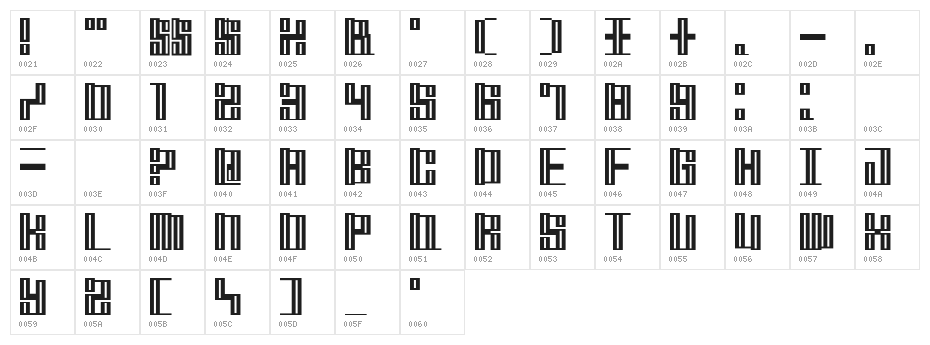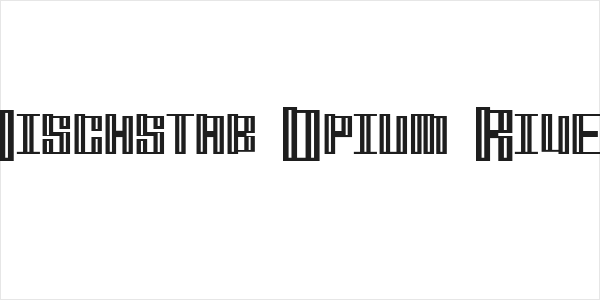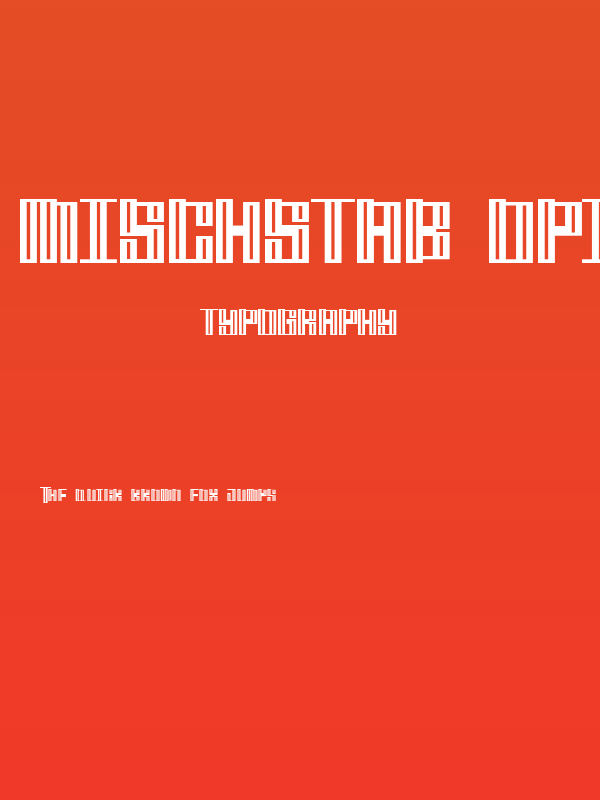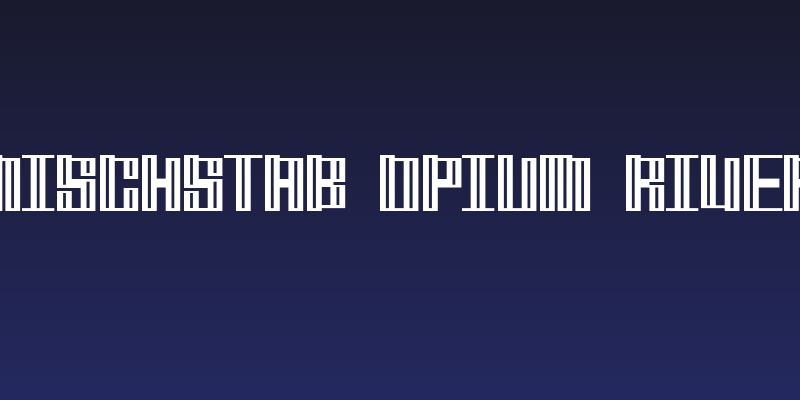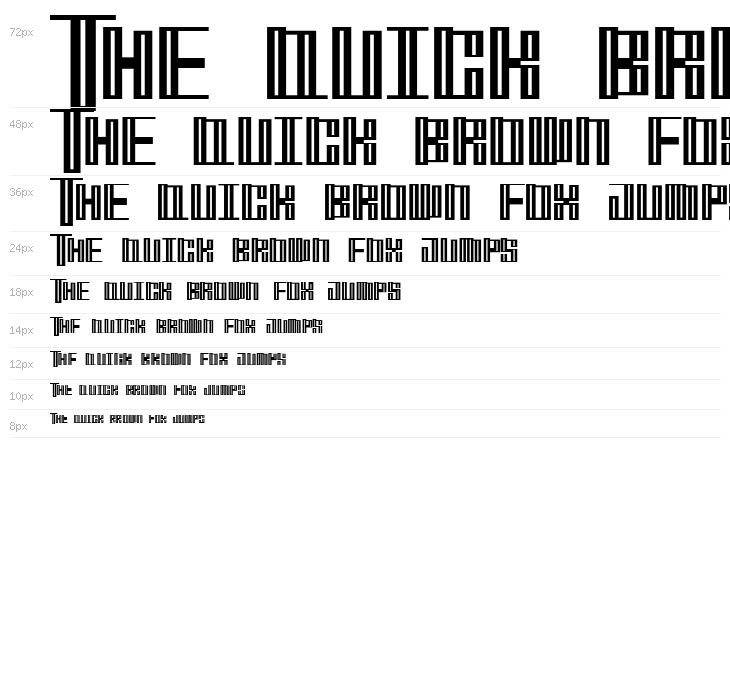
Mischstab Opium River Font
Mischstab Opium River Description
This font features a bold, geometric design with a distinctly modern and futuristic feel. Each character is constructed with a series of straight lines and right angles, creating a boxy, grid-like appearance. The uniform stroke width across all characters contributes to a clean and structured aesthetic. The uppercase and lowercase letters maintain a consistent height, enhancing the font's uniformity and balance. Numbers and special characters follow the same design principles, ensuring a cohesive look throughout. This font's unique style makes it ideal for projects that require a strong visual impact.
| Proposed Projects | Ideal for branding, posters, album covers, and digital media that require a futuristic or tech-inspired look. |